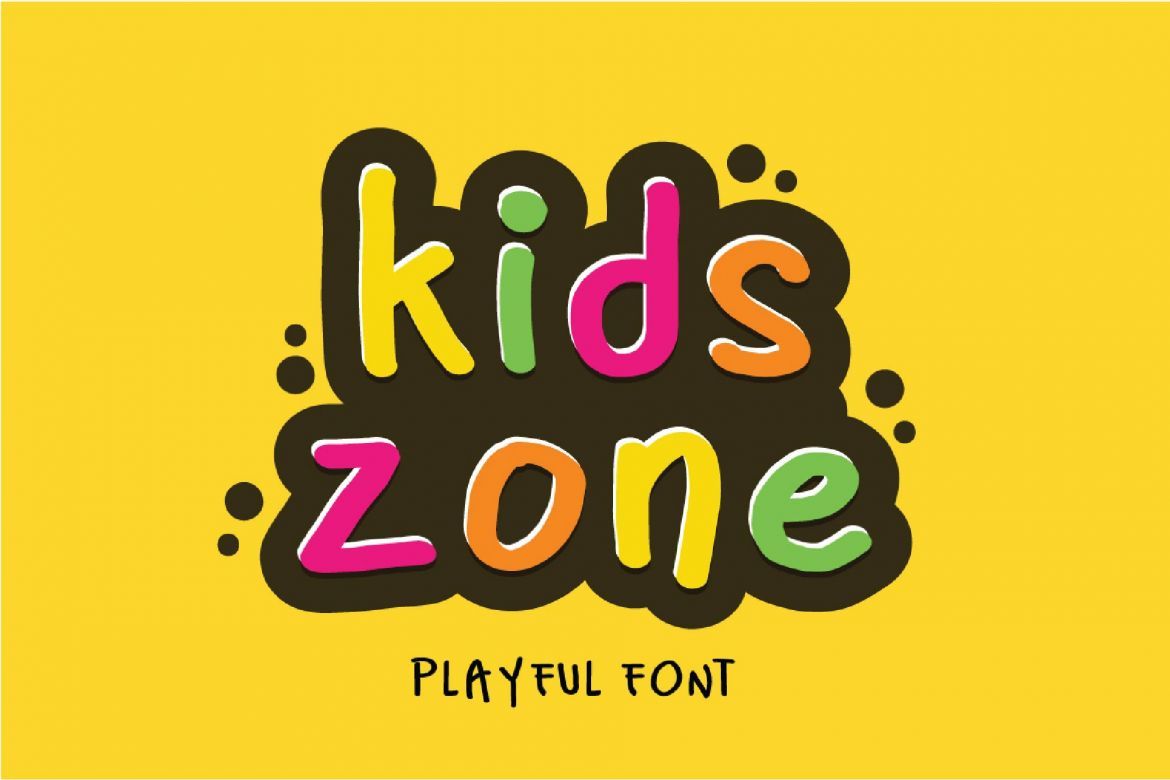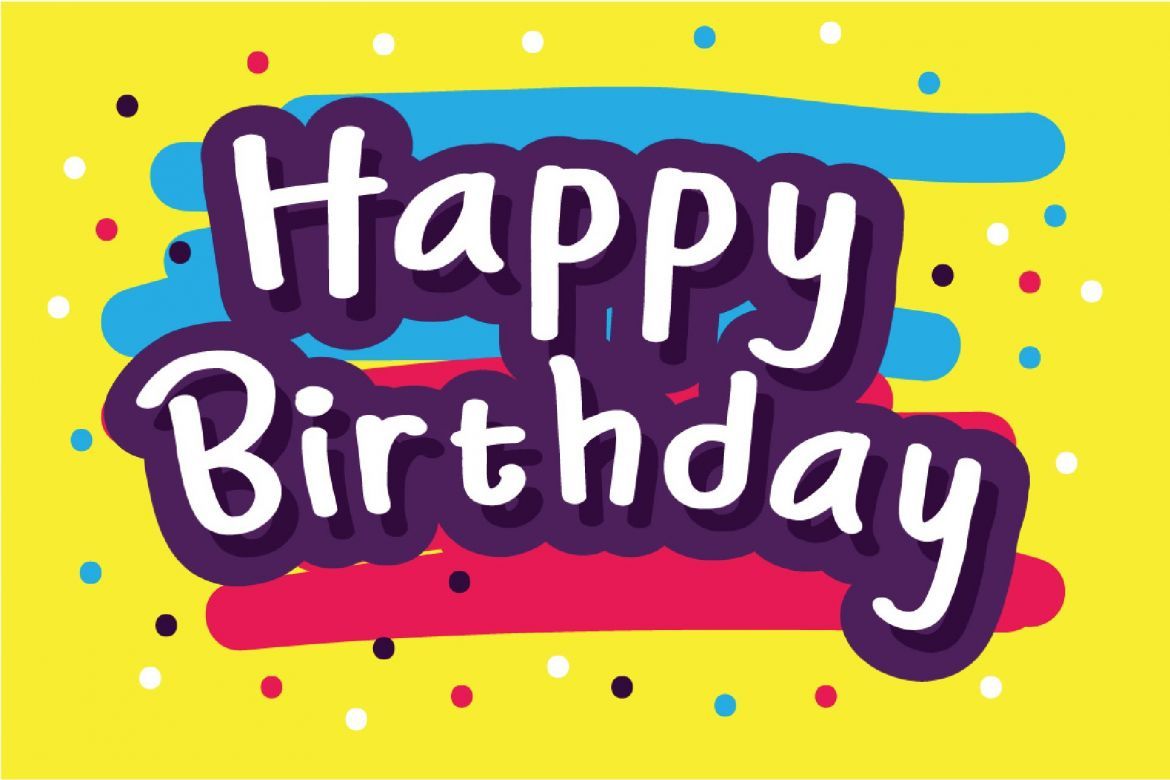
Kids Park Typeface
Kids Park - Playful Font a New Handwritten Typeface
So beautiful on invitation like greeting cards, branding materials, business cards, quotes, posters, and more!